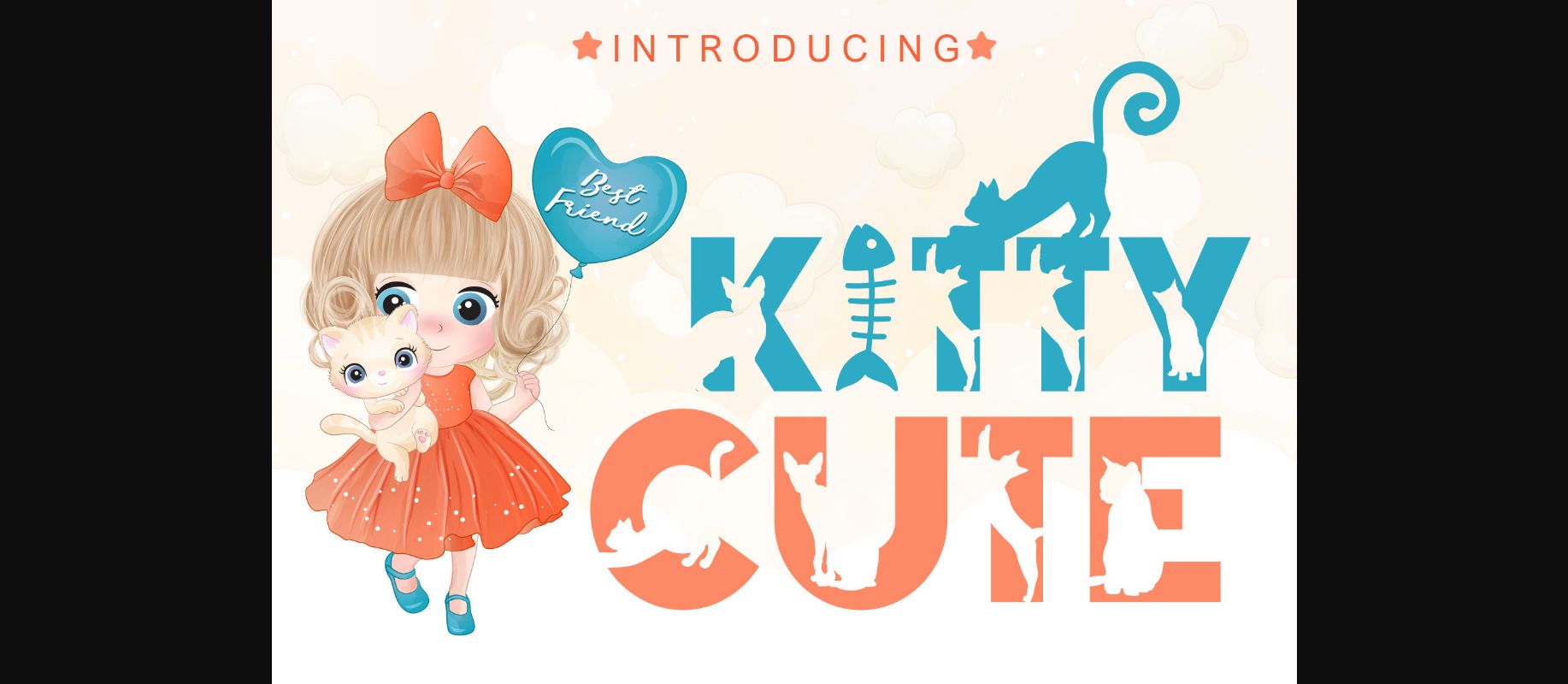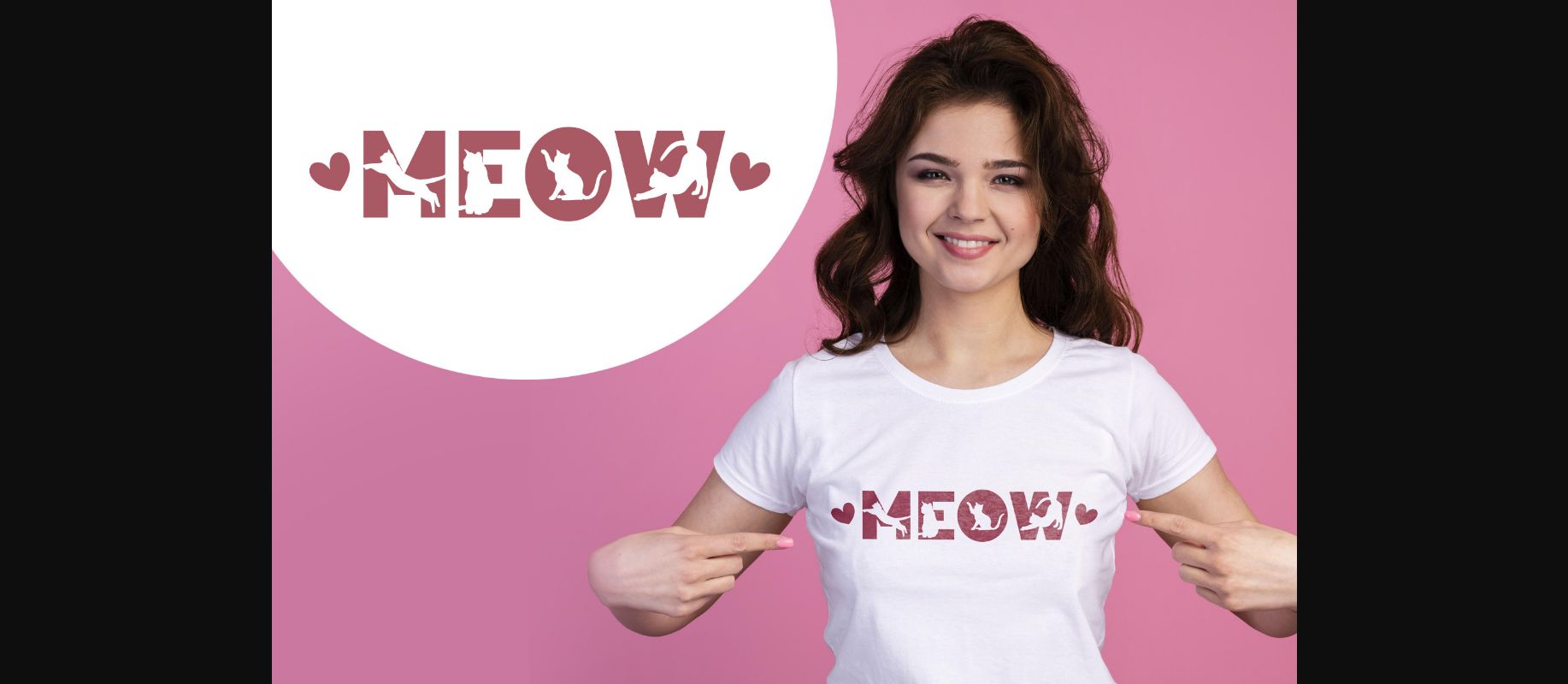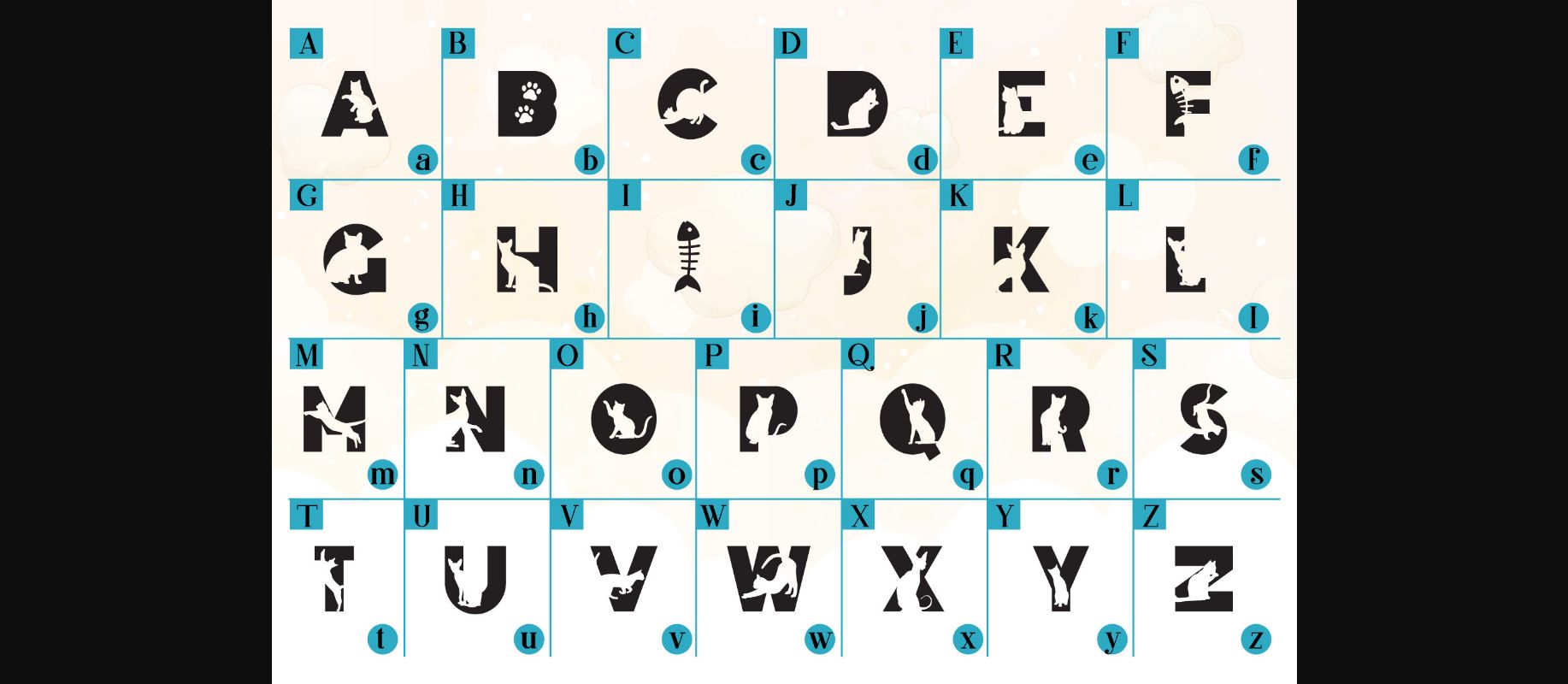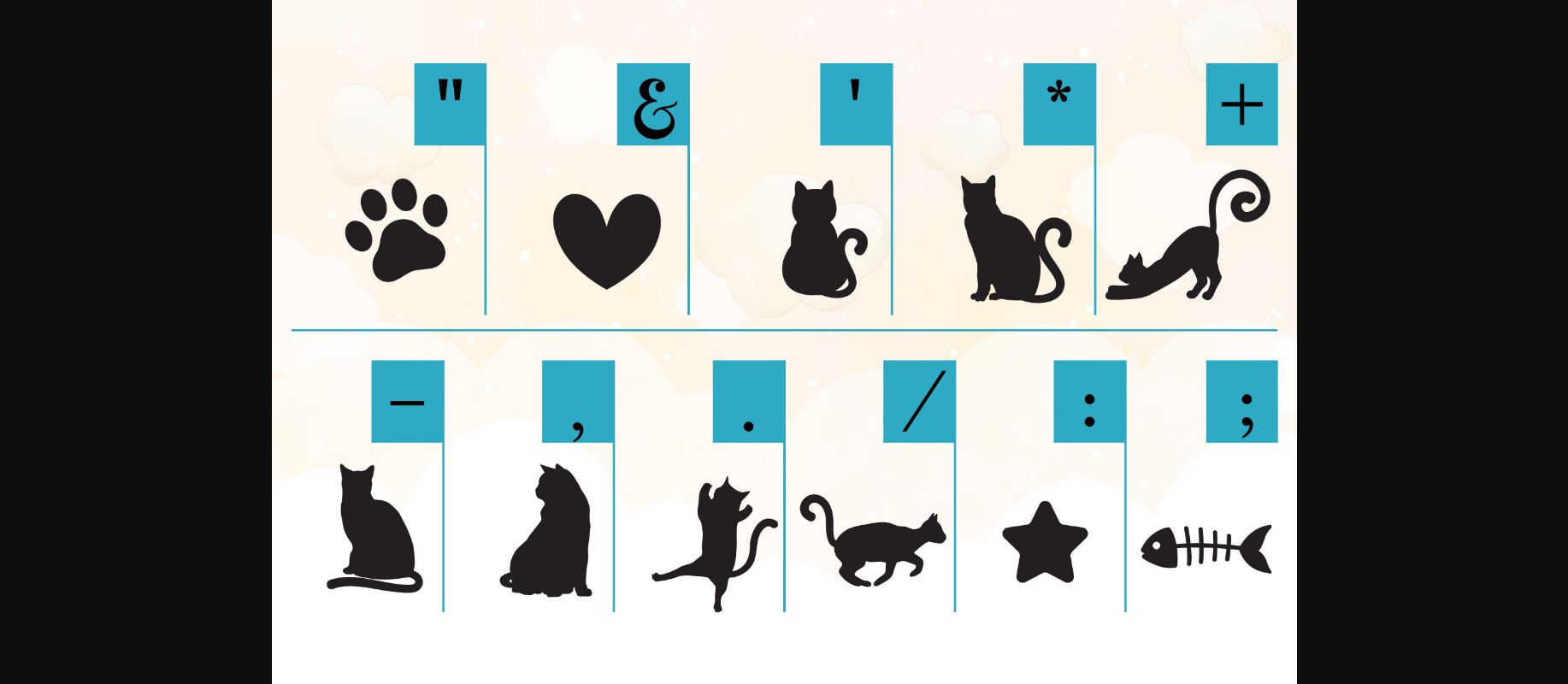
About Kitty Cute Font
Kitty Cute is a wonderful decorative font designed to look fun and not boring. Whether you’re using it for crafts, digital design, presentations, or making greeting cards, this font has the potential to become your favorite go-to font, no matter the occasion!